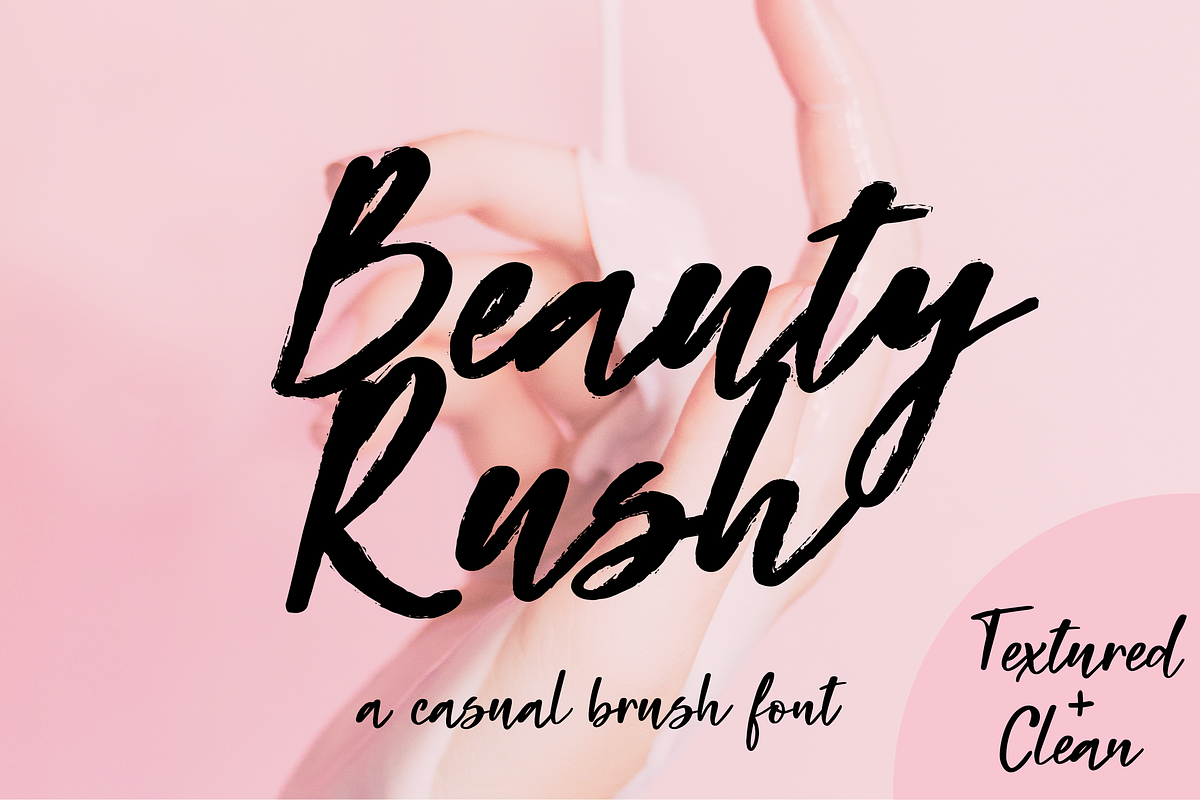
Beauty Rush Font Free Download is a stylish and elegant script typeface designed to bring a touch of sophistication to your designs. With its flowing curves, smooth strokes, and modern calligraphic style, Beauty Rush is perfect for fashion branding, wedding invitations, product packaging, social media graphics, and high-end logo designs.
The font combines elegance with readability, making it ideal for both display and text usage. Whether you're designing for a beauty brand, crafting an invitation, or creating chic marketing materials, Beauty Rush adds a refined, contemporary feel to your typography.